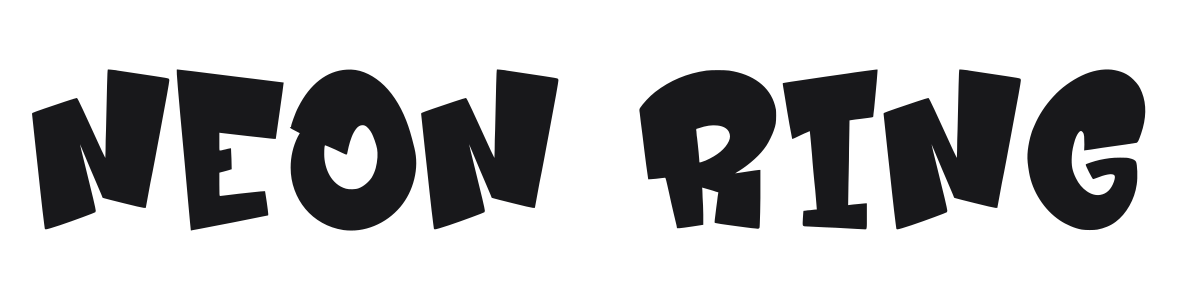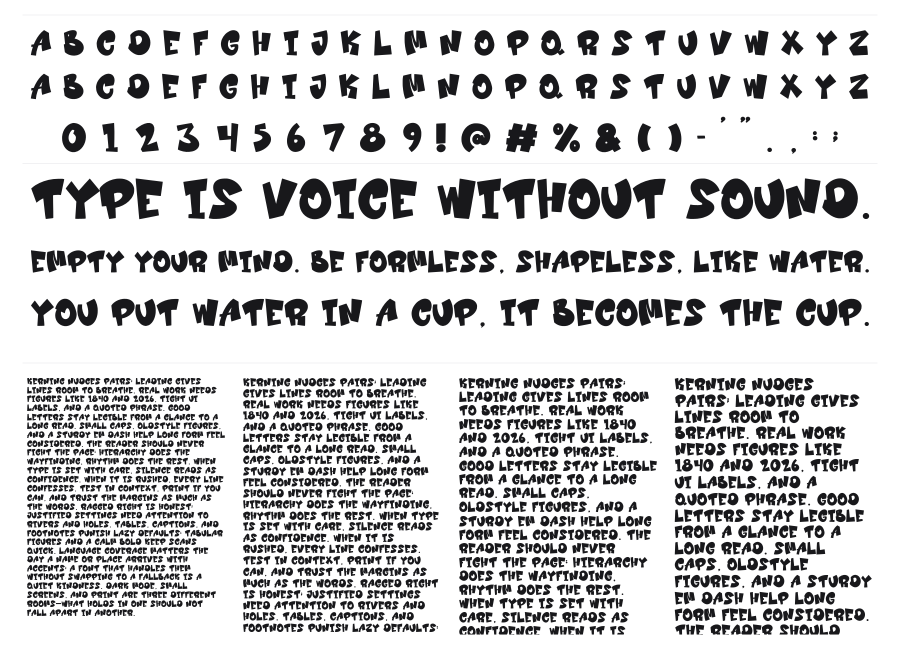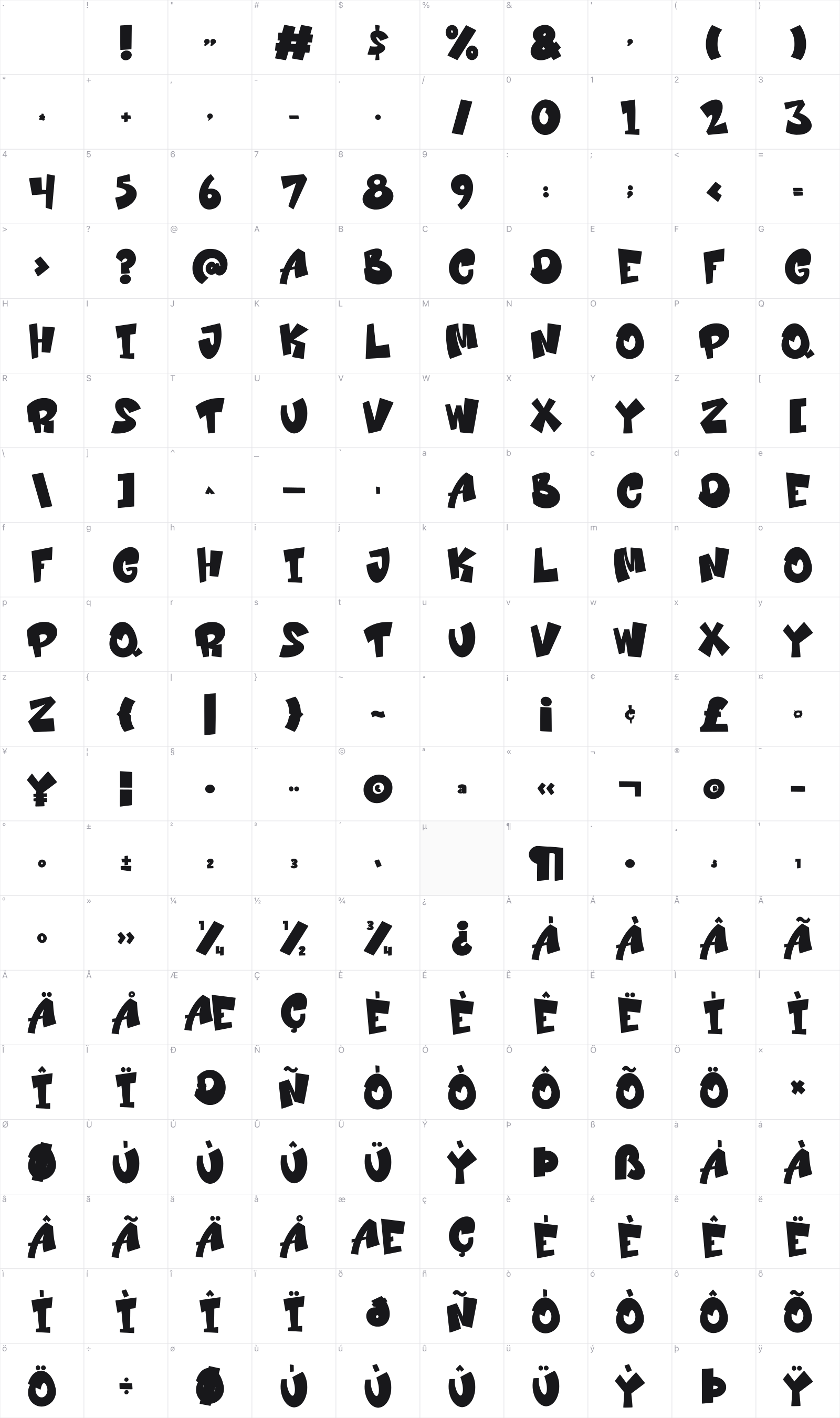
Neon Ring
Neon Ring is a heavy, hand-drawn comic display font with thick, irregular strokes and chunky rounded forms. The wobbly, organic outlines give it an inked, graffiti-adjacent energy that works well for anything loud and playful. It carries real weight on posters, packaging, and youth-oriented branding.